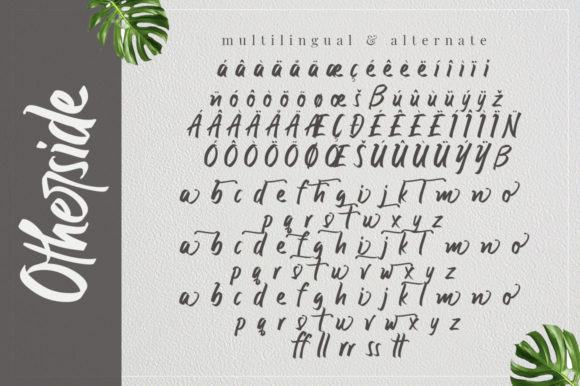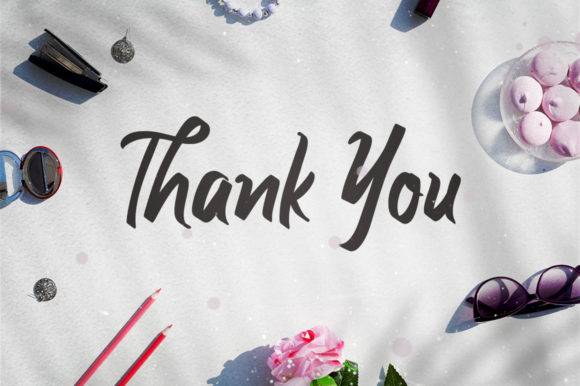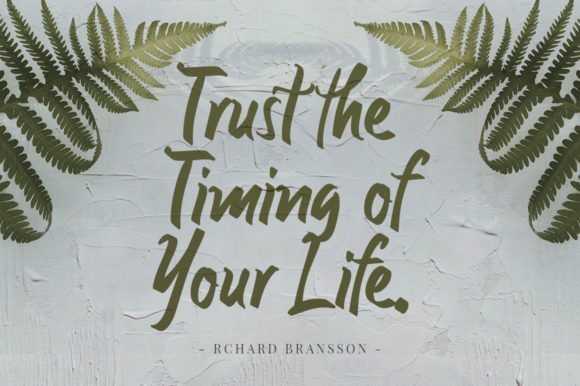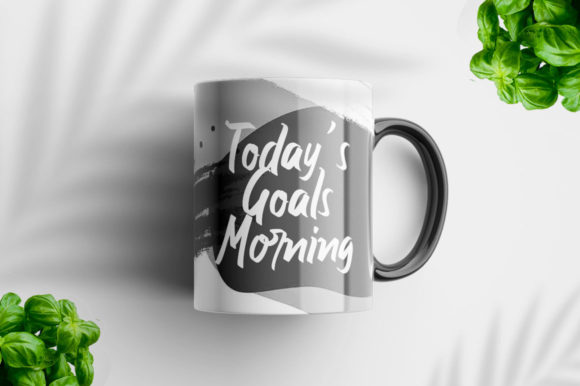
About Otherside Font
Otherside is a gorgeous and fashionable handwritten font that adds a touch of beauty and personalization to your designs. With its stunning aesthetic, this font is a perfect choice for various design projects that require a unique and stylish touch.
The captivating charm of Otherside font lies in its beautiful and handwritten appearance. Each letter is carefully crafted with an exquisite attention to detail, resulting in a font that is both visually appealing and elegant. Its stylish curves and artistic strokes create a sense of individuality, making it ideal for designs that aim to stand out from the crowd.
Versatility is one of the key strengths of Otherside font. It looks stunning on a wide range of designs, from branding and product packaging to invitations, quotes, and more. Whether you’re creating a logo for a fashion brand, designing packaging for a luxury product, or crafting personalized invitations for special occasions, Otherside font will enhance your designs with a personalized and sophisticated touch.
One of the notable features of Otherside font is its PUA encoding. This means that you can easily access all the glyphs and swashes that come with the font. The extensive set of characters and alternate letterforms allows you to customize and embellish your designs effortlessly, adding a delightful and unique flair.
By utilizing Otherside font in your designs, you not only add a personalized touch but also create a visual experience that captivates your audience. The handwritten style of the font evokes a sense of authenticity and creativity, establishing a connection with your viewers. Whether used on digital platforms or in print, Otherside font ensures that your message is communicated effectively while leaving a lasting impression.
In summary, Otherside is a beautiful and stylish handwritten font that adds a personalized touch to your designs. Its versatility and PUA encoding provide a wealth of design possibilities, making it suitable for branding, product packaging, invitations, quotes, and more. With Otherside font, you can create visually stunning and engaging designs that leave a lasting impression.